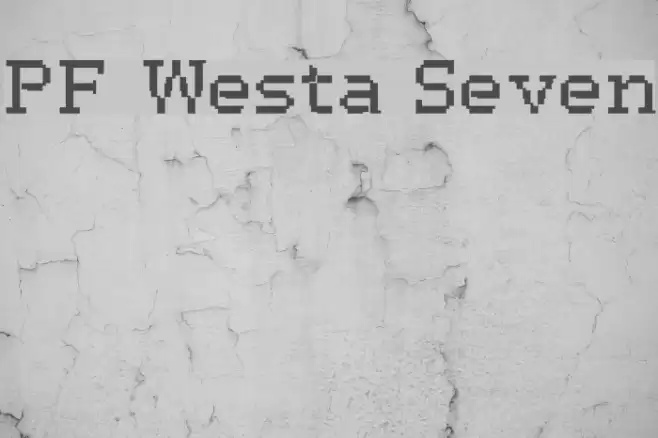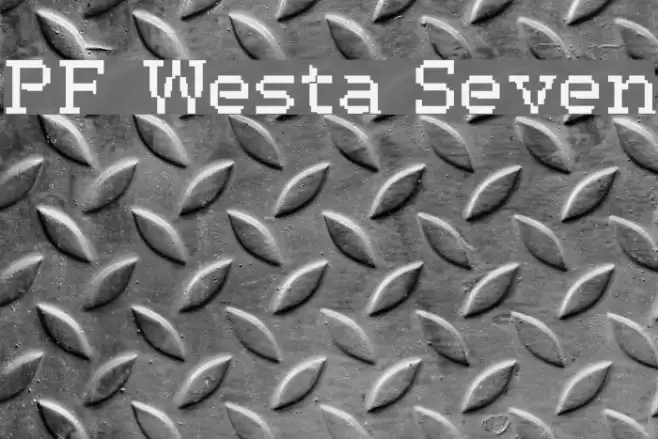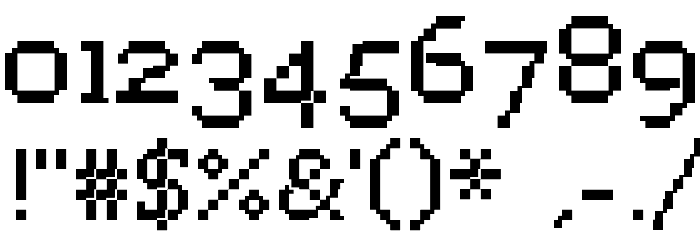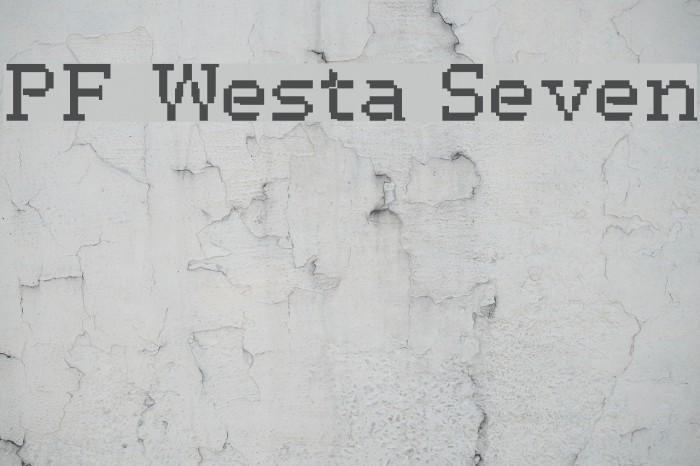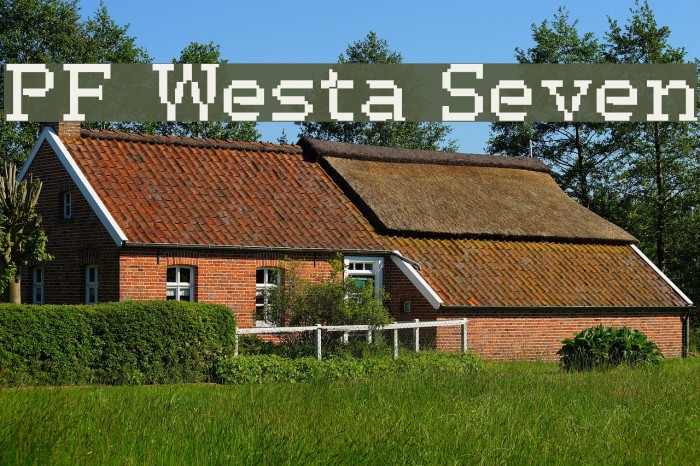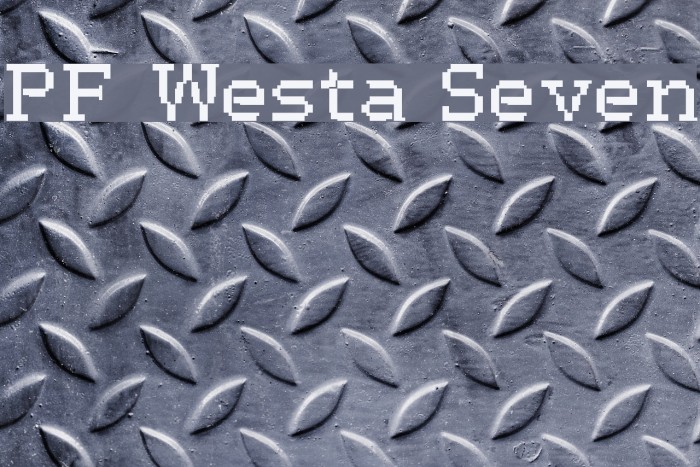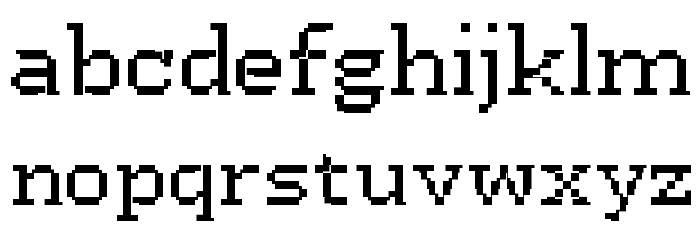
PF Westa Seven Font
PF Westa Seven Description
This font features a pixelated, retro style reminiscent of early computer graphics and video games. The characters are composed of blocky, square pixels, giving it a distinctly digital and nostalgic appearance. The uppercase and lowercase letters maintain a consistent height and width, contributing to a uniform look. Numbers and special characters follow the same pixelated design, ensuring cohesion across all elements. The font's simplicity and geometric structure make it highly legible, even at smaller sizes. Its unique style is ideal for projects that aim to evoke a sense of nostalgia or a retro digital aesthetic.
A pixelated, retro font with a digital, nostalgic style from Pixel fonts.
- Proposed Projects: Ideal for video game design, retro-themed posters, digital art projects, and any creative work that seeks to capture a vintage digital aesthetic.
- Overall Style: Retro, Digital